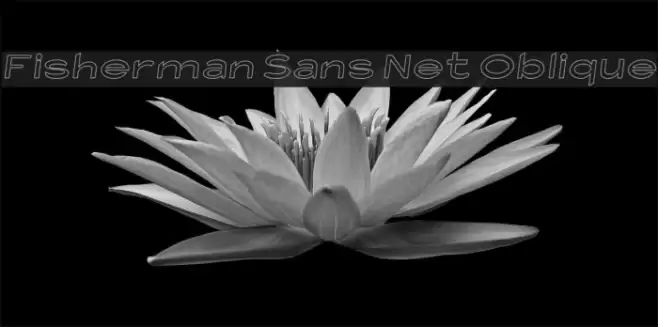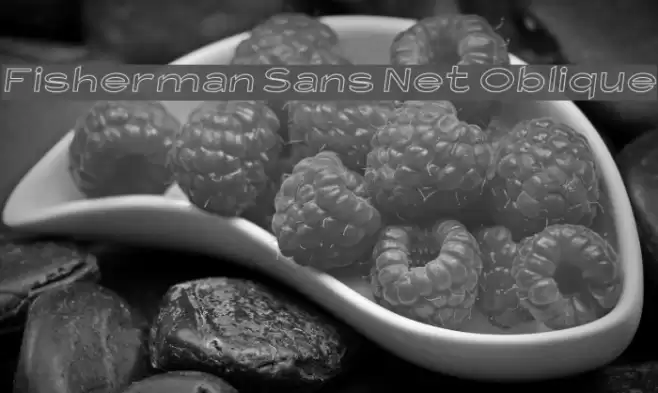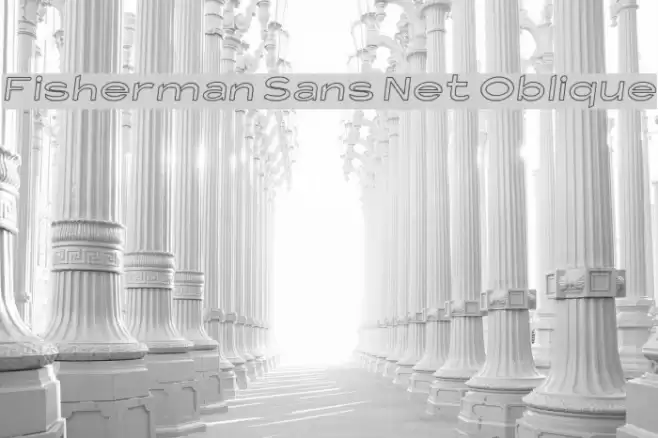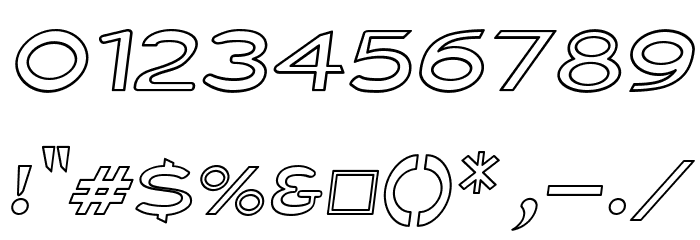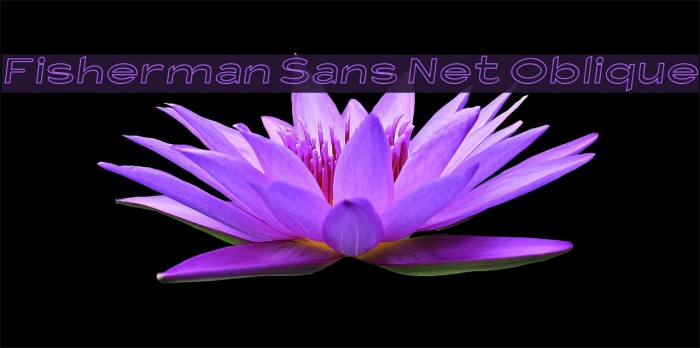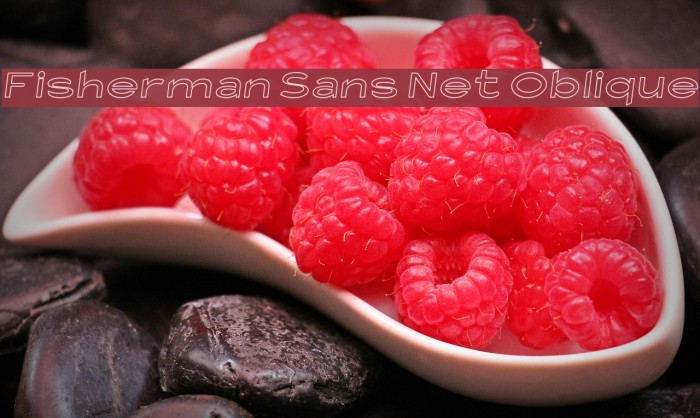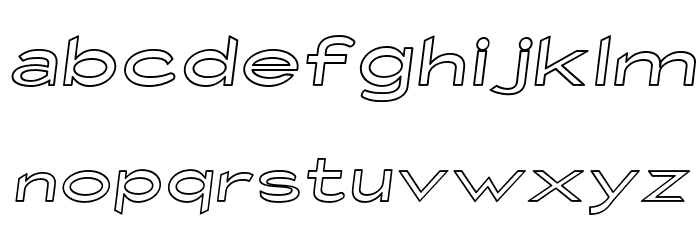
Fisherman Sans Net Oblique Font
Fisherman Sans Net Oblique Description
This font features a modern and sleek design with an oblique style, giving it a dynamic and forward-leaning appearance. The characters are outlined, creating a hollow effect that adds a unique visual interest. The uppercase and lowercase letters maintain a consistent geometric structure, while the numerals and special characters complement the overall aesthetic. The font's clean lines and open spaces make it highly legible, even at smaller sizes. Its contemporary style is suitable for a variety of design projects, offering a fresh and innovative look.
A modern, oblique, outlined font with a sleek and dynamic appearance from Uncategorized fonts.